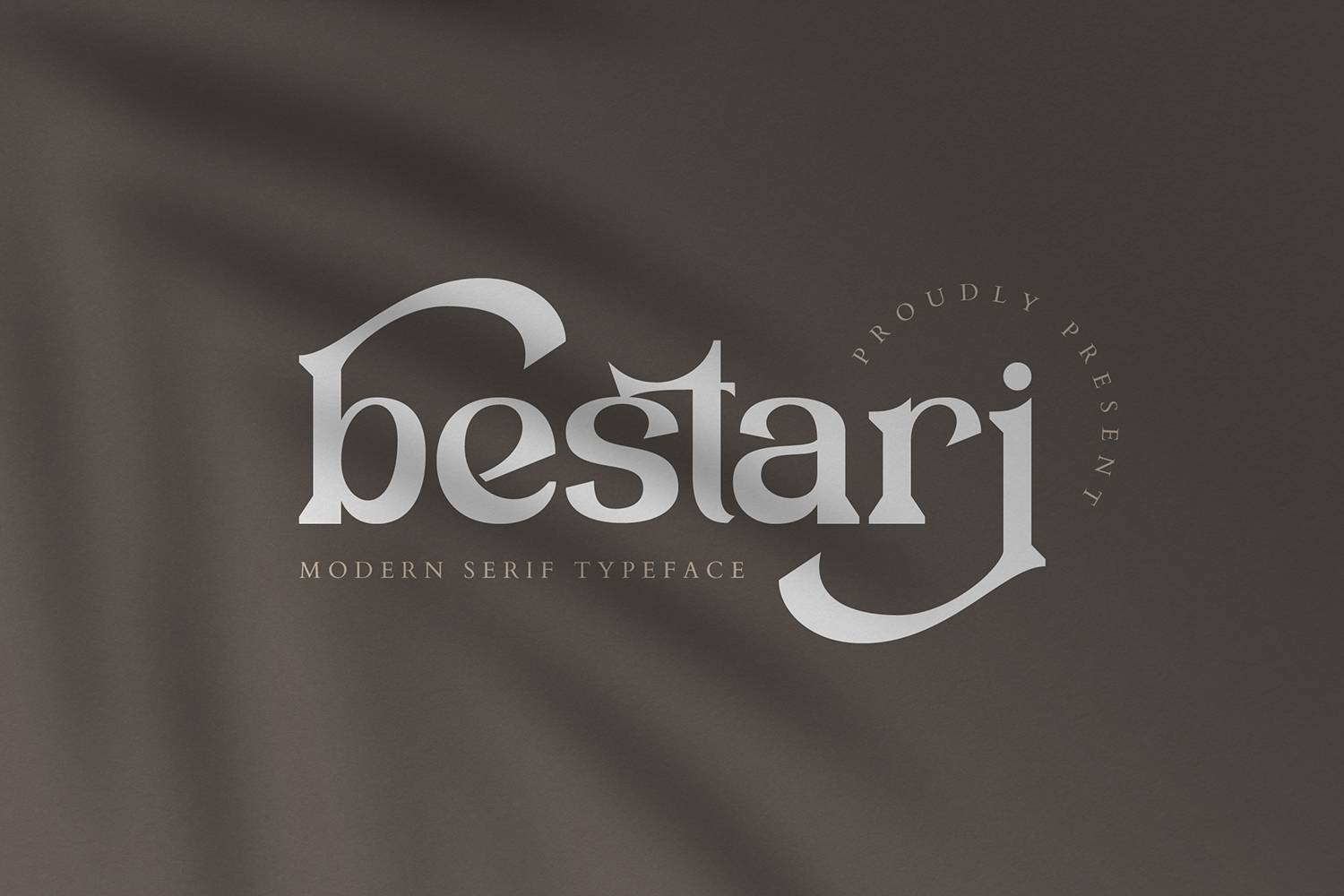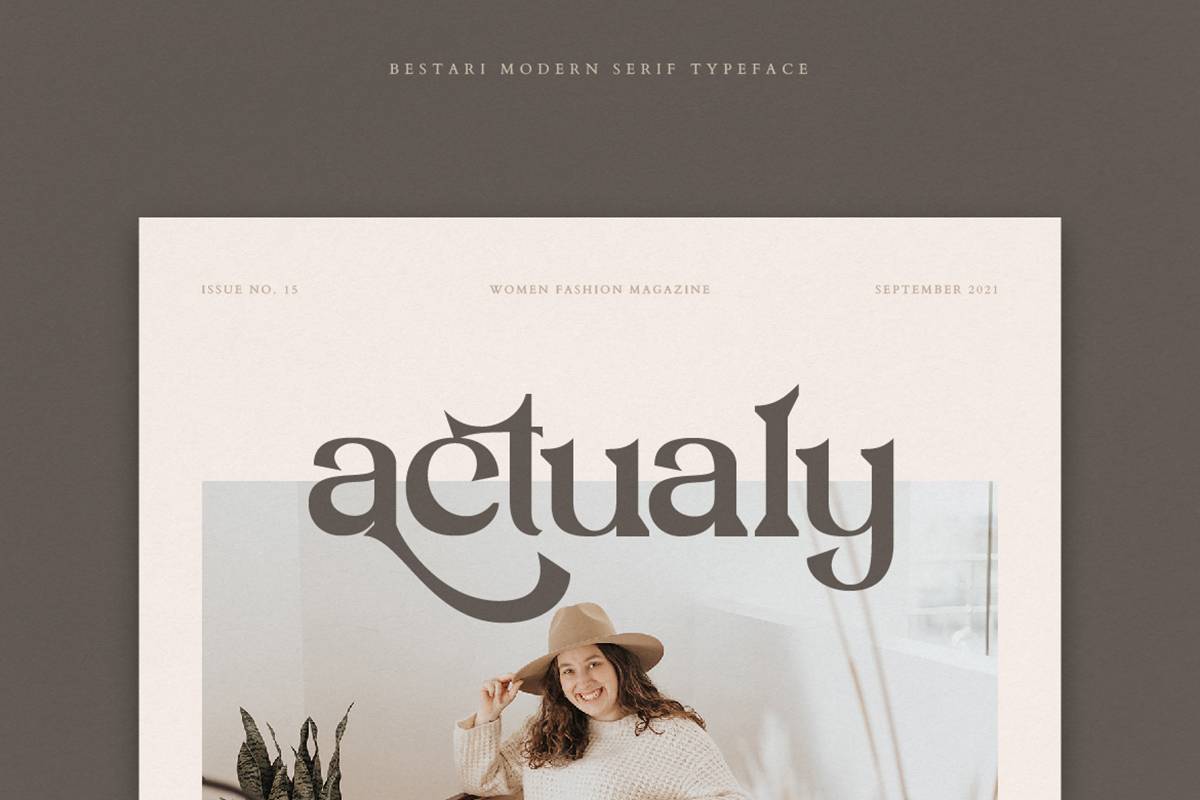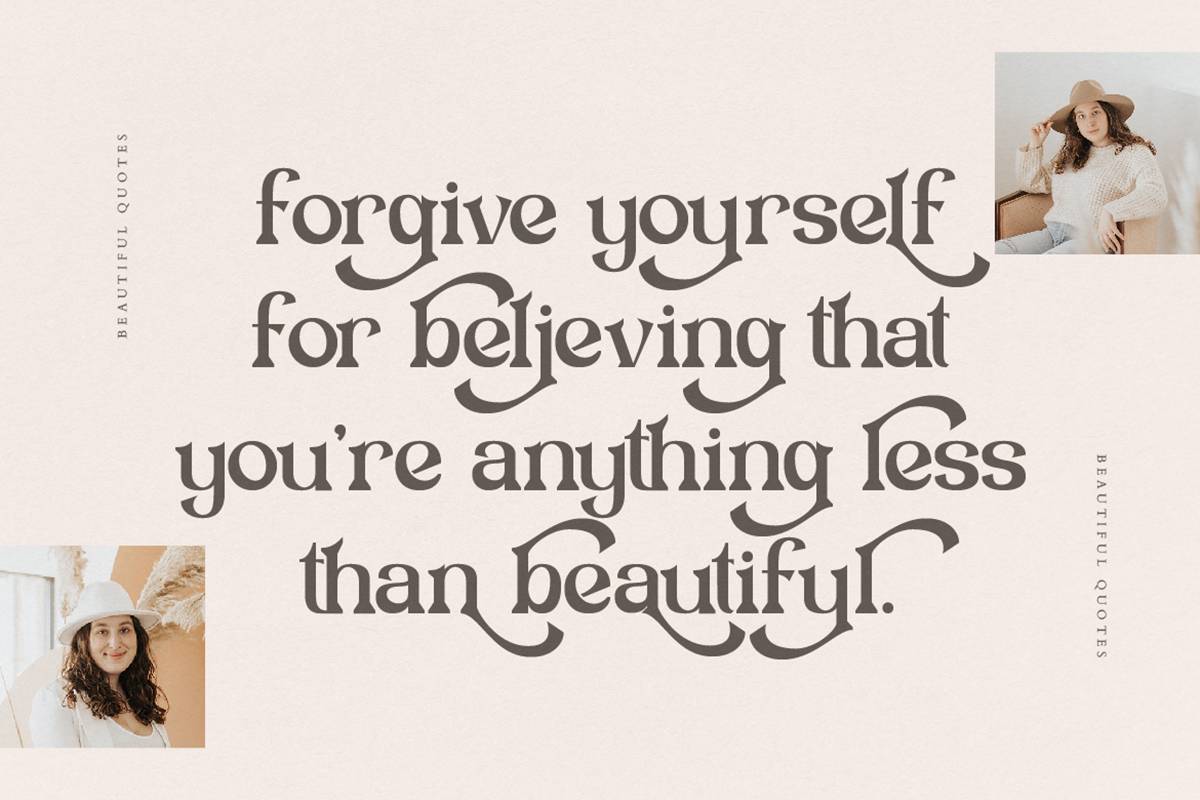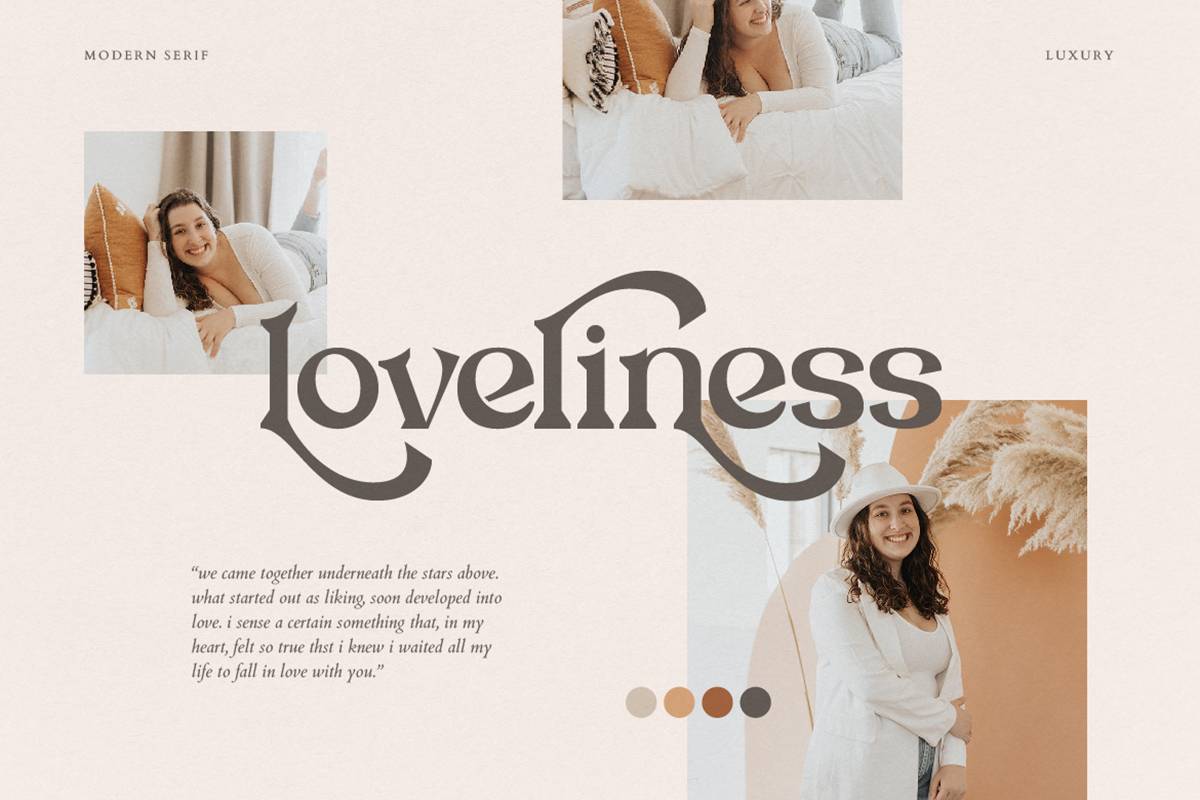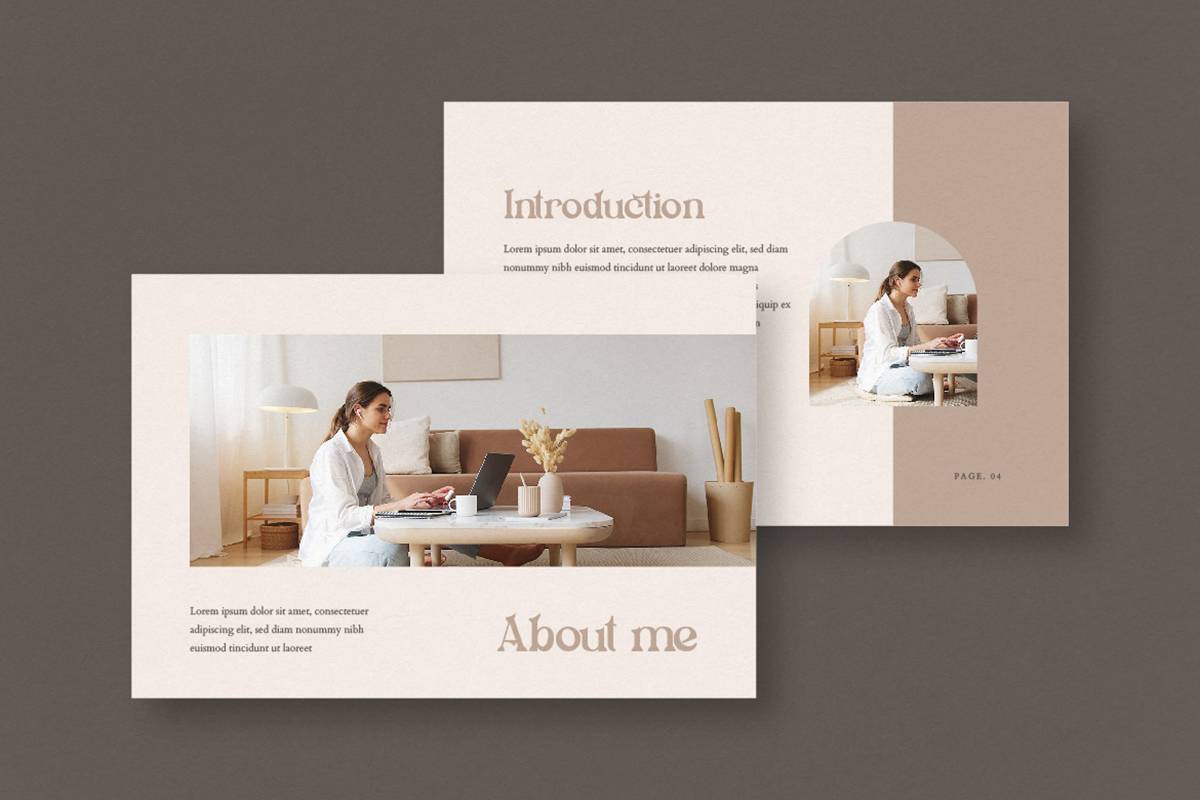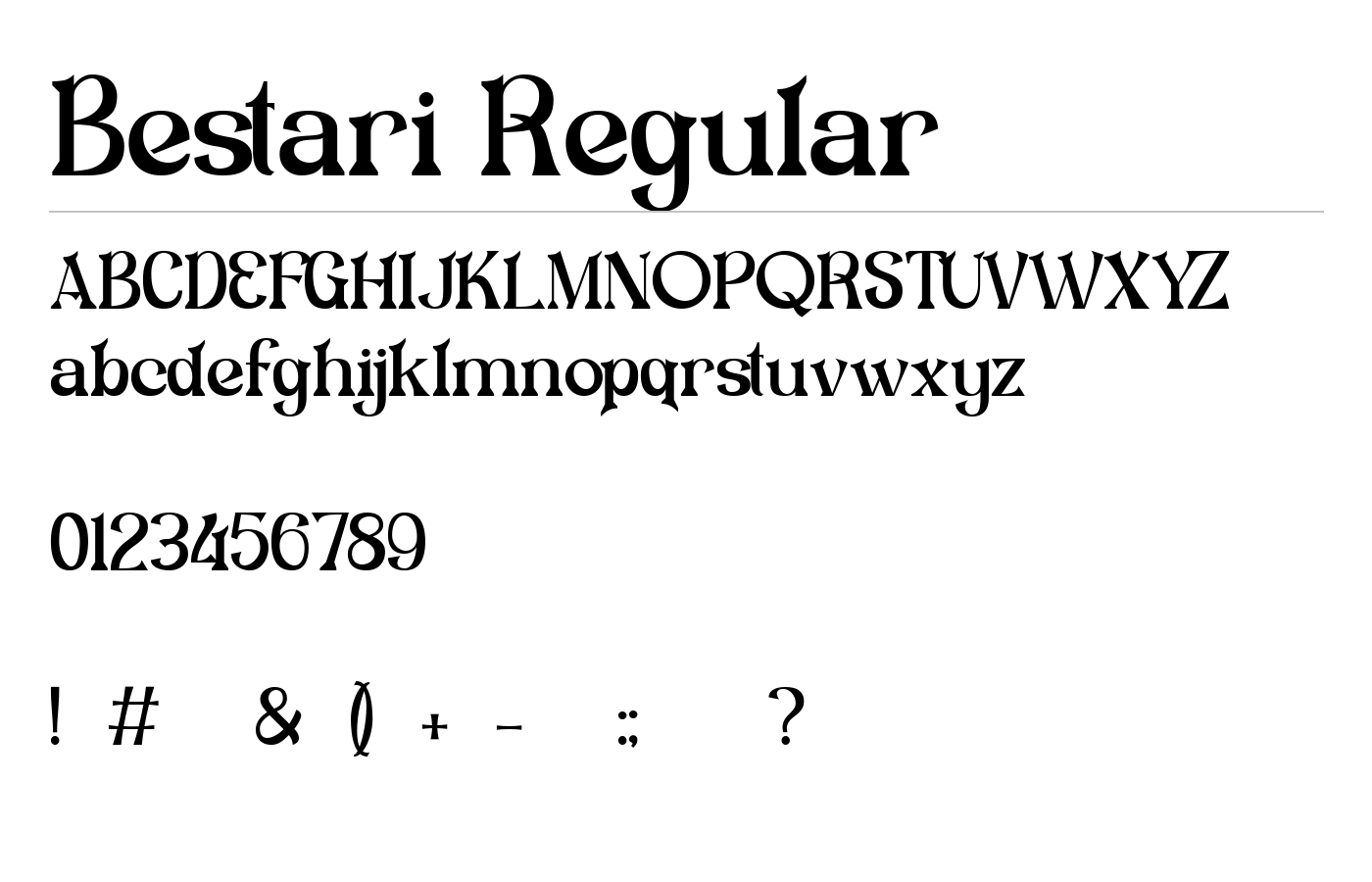
Bestari is a distinctive serif font with a strong, sharp design that conveys a sense of vintage elegance mixed with a quirky modern twist. Its high contrast between thick and thin strokes, angular serifs, and unique letterforms make it an excellent choice for creative headlines, editorial projects, and branding that aims for a bold, artistic, and memorable look. This font works best where character and style are needed to stand out, such as in posters, logos, and fashion-oriented materials.
Bestari Font
About Bestari Font